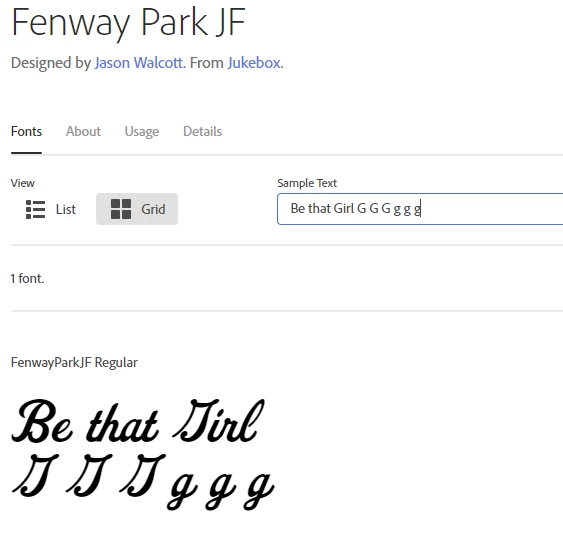
Font strange - the Fenway Park JF Designed by Jason Walcott. From Jukebox.
I found the Fenway Park JF in Adobe Font - but the uppercase letter G looks crazy, it is, in my not so humble opinion, not even close to a G. See screenprint.
Anybody knows why? I really like this font but... I need it to work.
That is the font as designed, you can see it on https://fonts.adobe.com/fonts/fenway-park-jf - change the sample text to compare "G" and "J". The graphic below is interesting, it's from https://en.wikipedia.org/wiki/G and shows a handwritten form of G. Seems like the font has a stylisation of this.